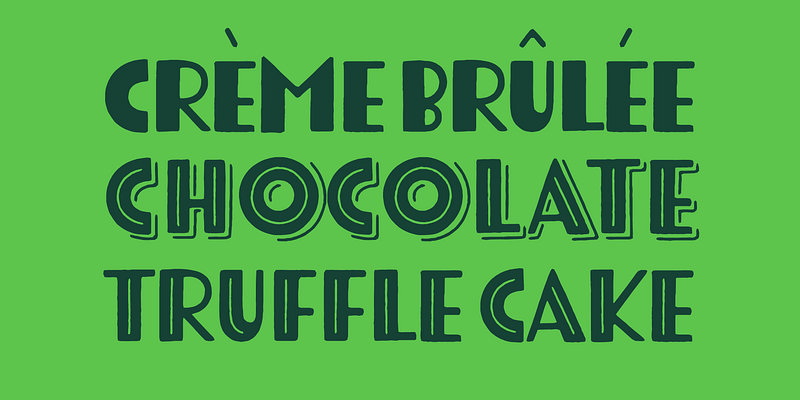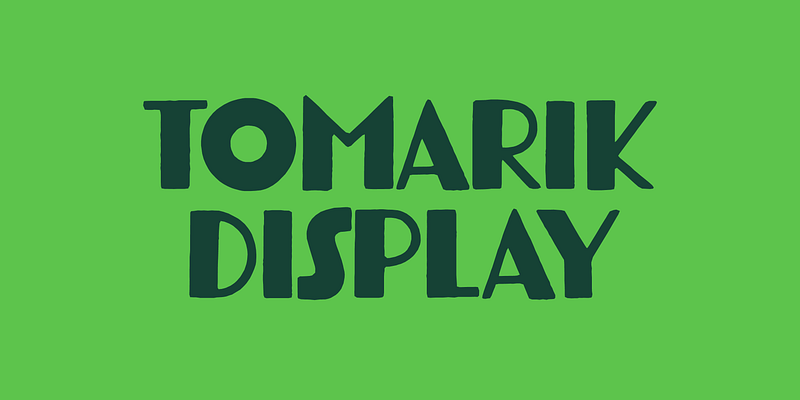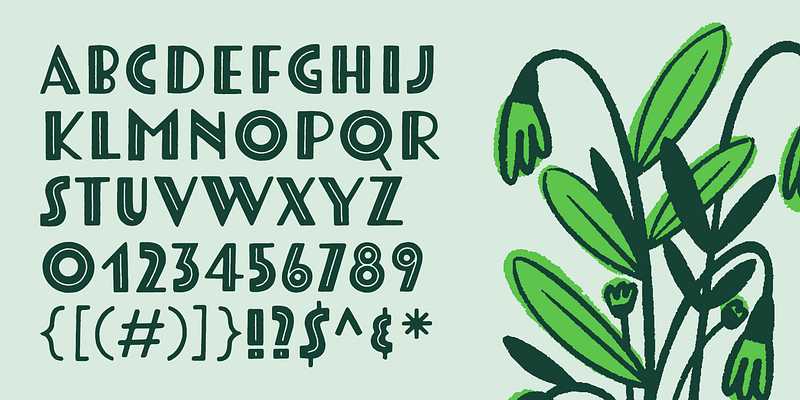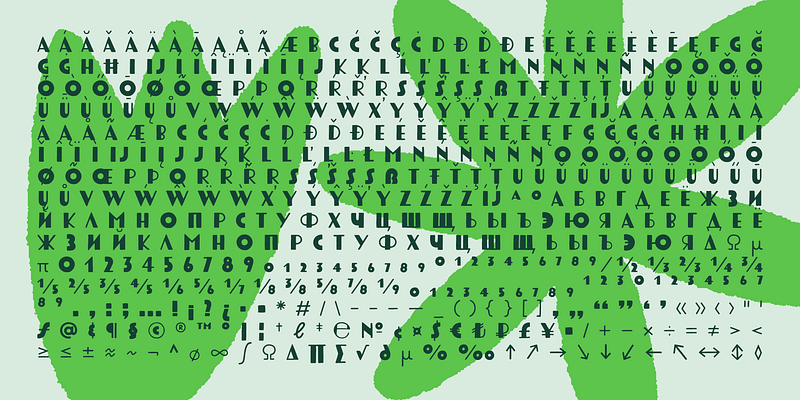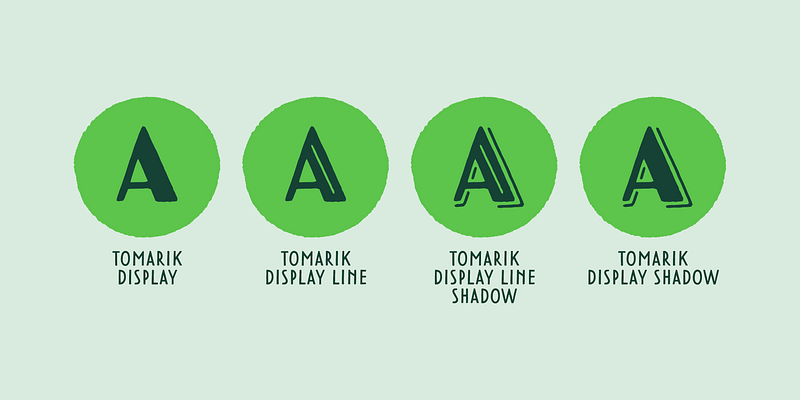
Tomarik Display is a vibrant hand-drawn type collection and a playful addition to any creative depository. Assembled with the “pick-and-mix” idea in mind Tomarik Display features four distinctive weights and includes OpenType features such as fractions, inferiors and superiors.